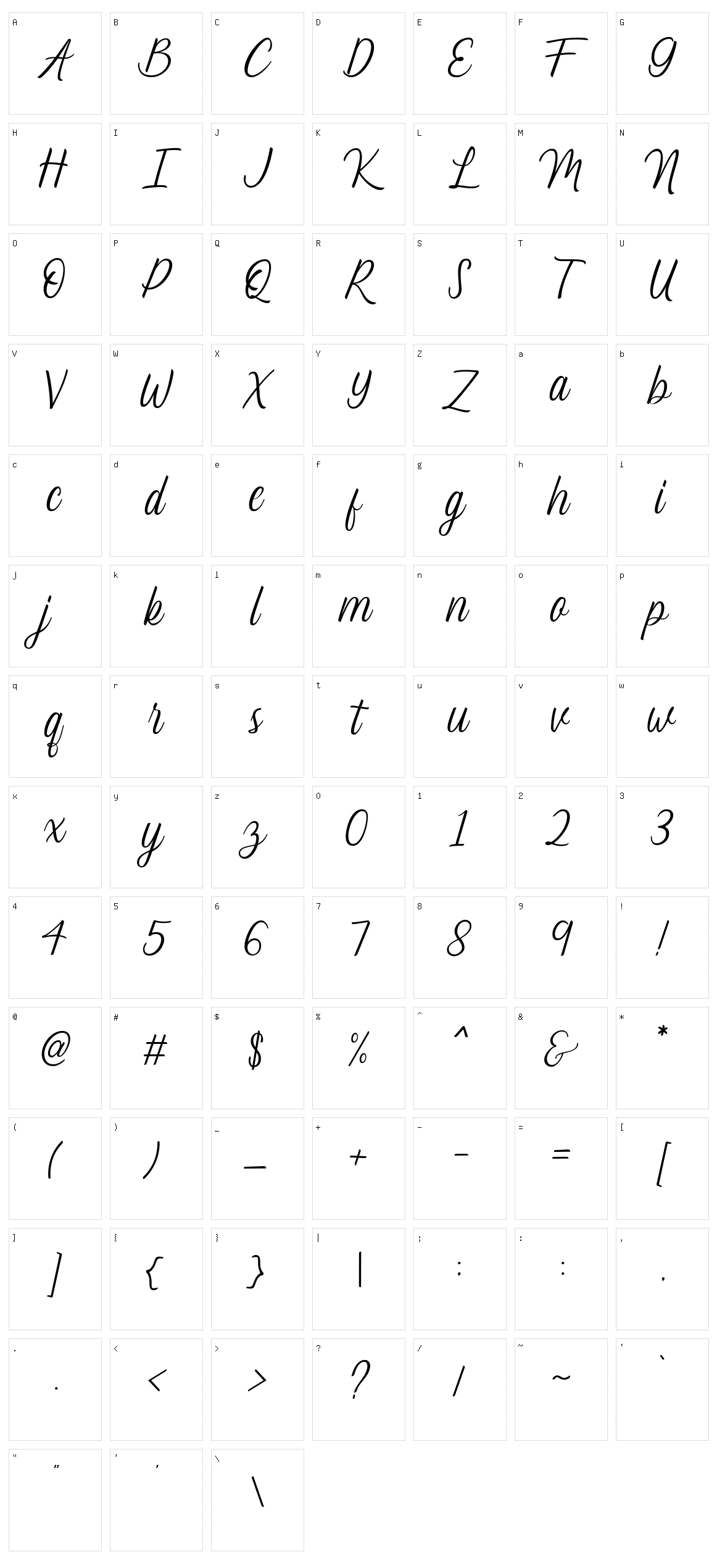
The free font Lucy Carter is carefully designed by Rillatype, showcasing a thoughtful balance of creativity and usability and falls under the Script font style. When you download the ZIP file, it contains only 22.11 KB of font files, making it lightweight and quick to download. Please review the license details below to understand permitted usage and distribution rights. If license information is not available, we recommend using this font for personal projects only or contacting the author directly for commercial usage permissions.